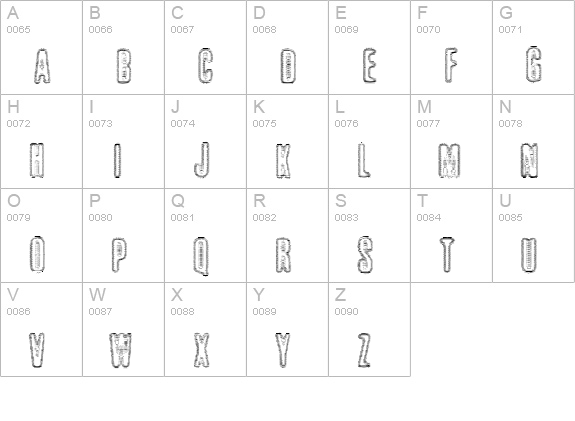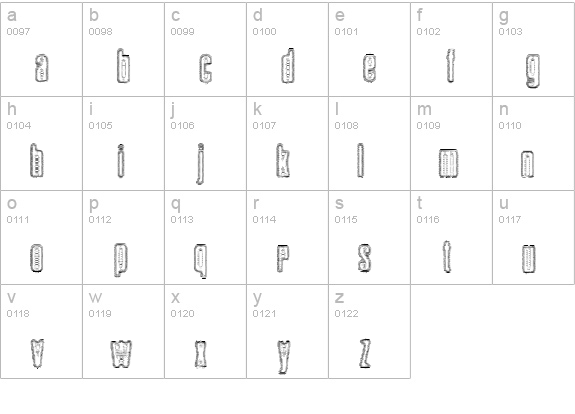
Hizbollah Font Details
Hizbollah font is a unique and versatile typeface that exudes elegance and sophistication. With its sleek lines and modern design, Hizbollah is perfect for a wide range of design projects, from logos to branding materials to website headers. This font is meticulously crafted to ensure readability and visual appeal in any context. Best of all, Hizbollah font is available for free download at FontsMarket.com. So whether you're a designer looking to add a touch of class to your projects or a business owner wanting to elevate your brand, Hizbollah font is the perfect choice. Download it today and unlock a world of creative possibilities!